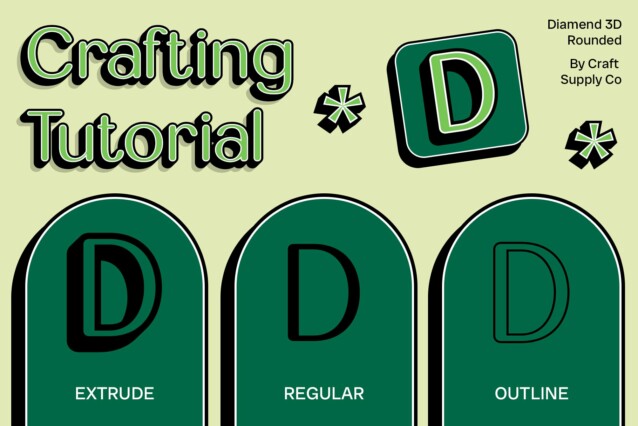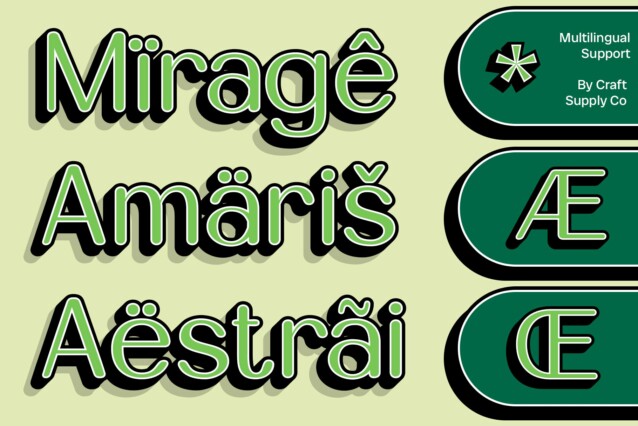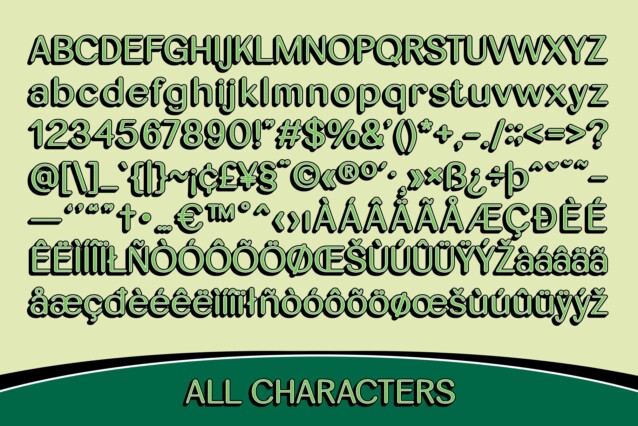
Diamend Rounded 3D Font
Diamend Rounded 3D Font is a sans-serif font with a rounded shape and a 3D effect, perfect for adding depth and dimension to your designs. Its playful yet sophisticated style makes it ideal for a wide range of display purposes.
Versatile and Eye-Catching
With its versatile design, Diamend Font is suitable for a variety of uses, including headlines, logos, and branding. Its rounded shape adds a touch of whimsy, while the 3D effect creates a sense of depth that draws the eye.